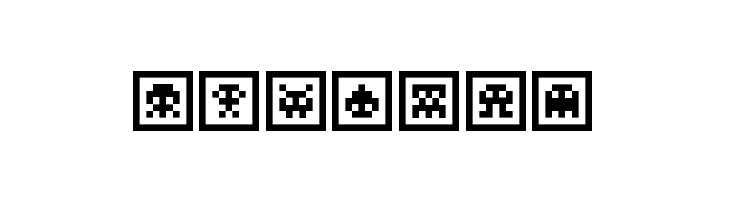
Limit Breaking - Personal use Font
- Font: Limit Breaking - Personal use
A playful, pixelated font with characters in square boxes, reminiscent of retro video game graphics.